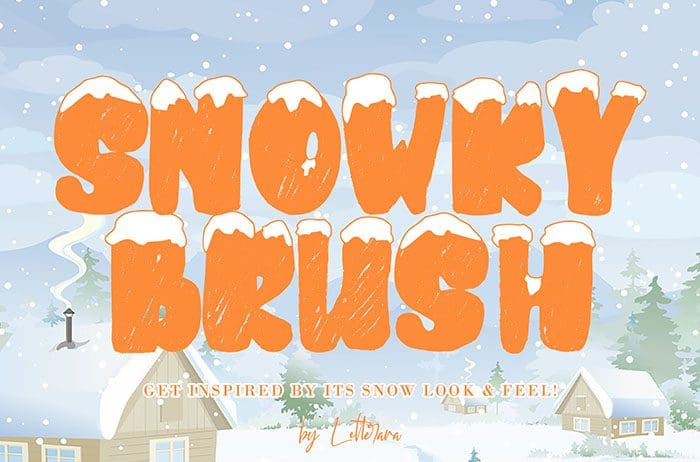
Free Snowky Brush Font
Snowky Brush Font
Free Snowky Brush font is a simple layered font inspired by the uniqueness of the snow. Snowky brush is great in any branding, posters designs, and your upcoming winter stuff. Get inspired by its snow look & feel. Created this font by Thomas Aradea. You can also search more free Brush Fonts. Thanks!